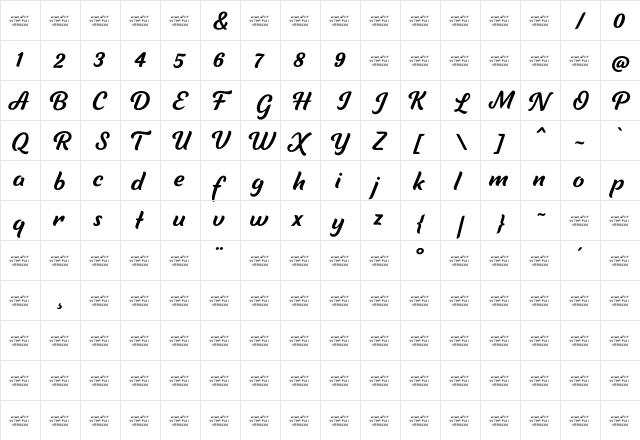
Tilda Script Demo S Non connect Demo
Design Context for Tilda Script Demo Typeface
Tilda Script Demo brings a calligraphic fluidity to the page — its connecting strokes and expressive curves give it an unmistakably human quality.
Font Pairing: Combine Tilda Script Demo with a simple geometric sans for maximum contrast — the tension between flowing curves and clean structure is a classic typographic pairing.
Pro Tip: Use Tilda Script Demo for short runs of text — names, titles, or taglines. Extended body copy in script faces tires the eye quickly.